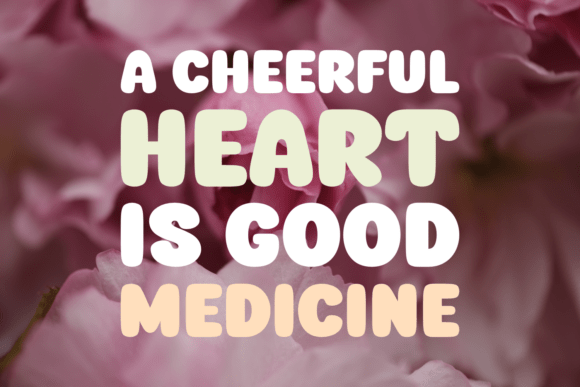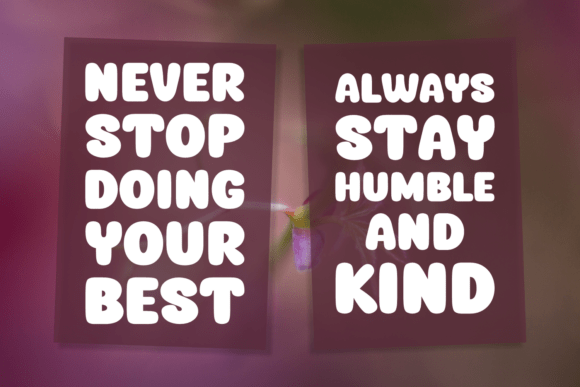
Introduction to Mario Dream Font
“Mario Dream” appears to be a cheerful, playful, and approachable display font.
Its most striking features are its bold, rounded letterforms and its smooth, slightly bouncy curves, which give it a distinct whimsical character This font would be excellent for designs targeting children, casual branding, game interfaces, informal marketing materials, posters, greeting cards, and anything that requires a fun, friendly, and approachable vibe.
Key Features of Mario Dream Font